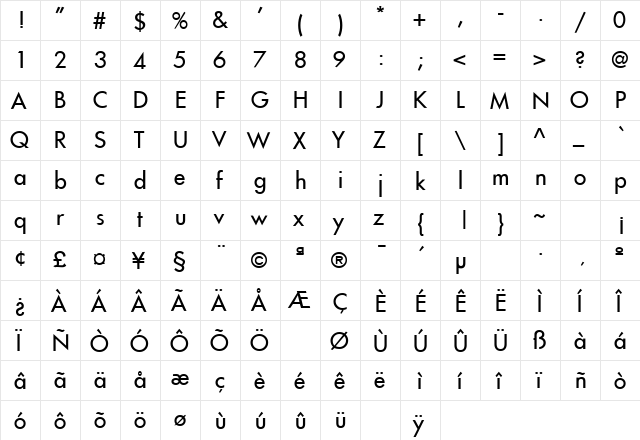
Intrepid Regular
Design Context for Intrepid Typeface
Intrepid is a composed and adaptable typeface that performs quietly and consistently across a wide range of design contexts.